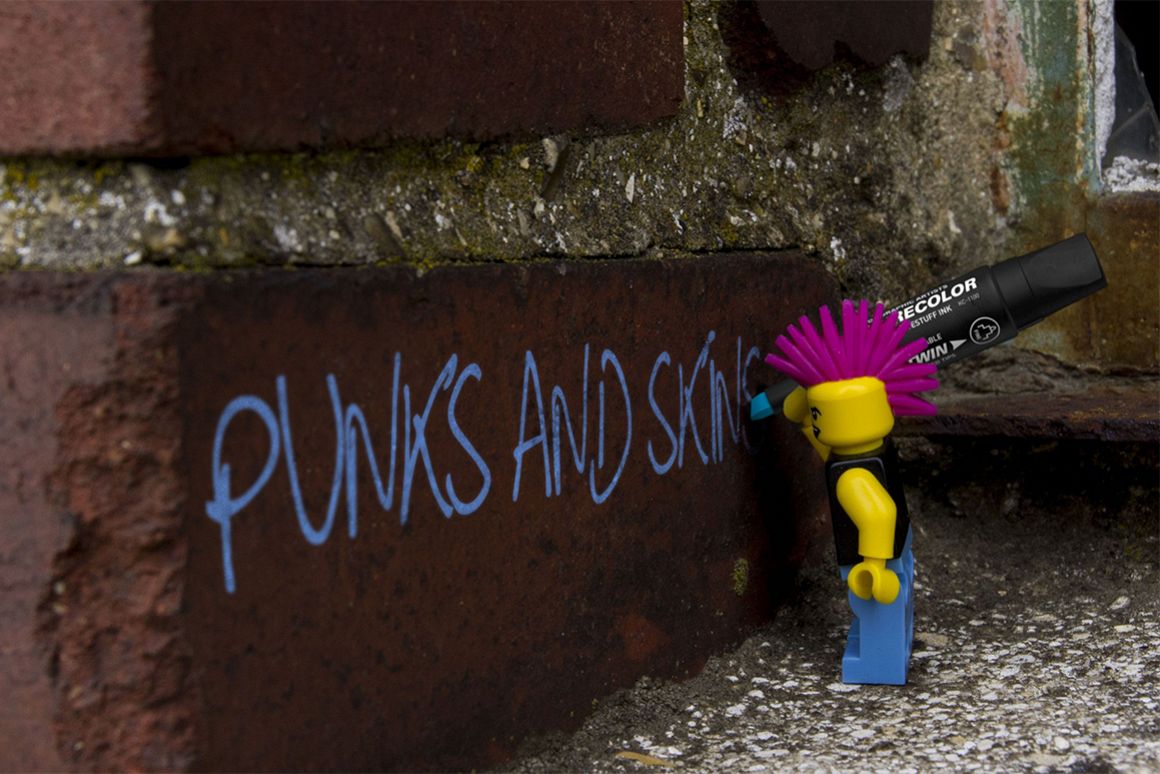
Punk's and Skins Typeface
Punks and Skins is a handmade font with a punk-rock touch.
This anarchistic font is fun and playful for creating edgy designs.
All letters. All numbers. All uppercase. All punctuations.